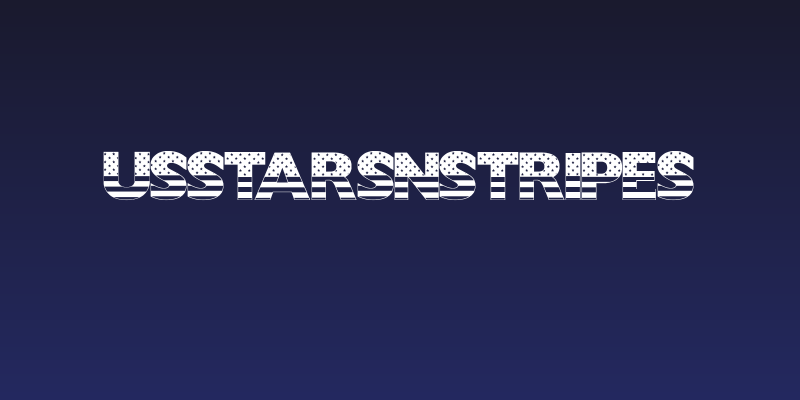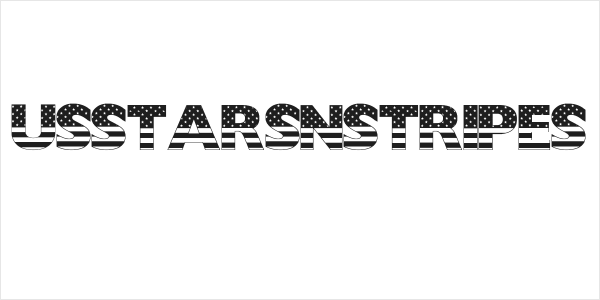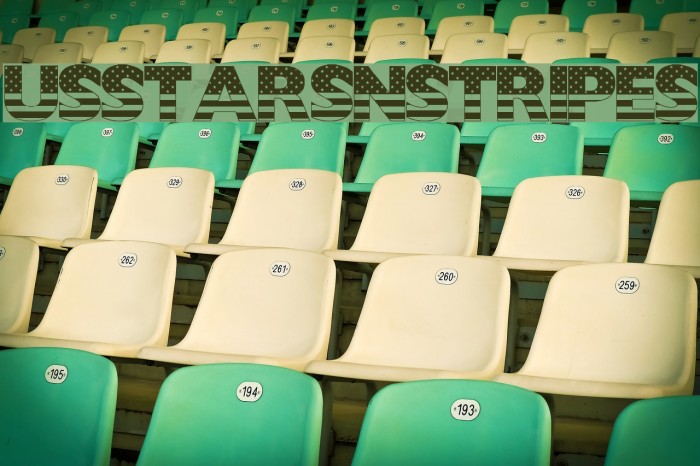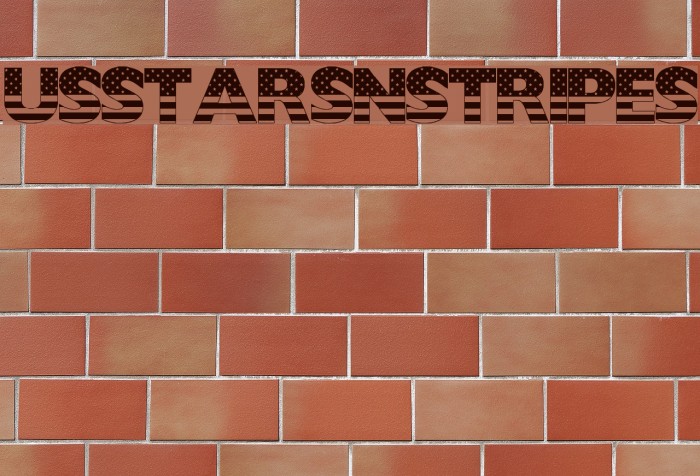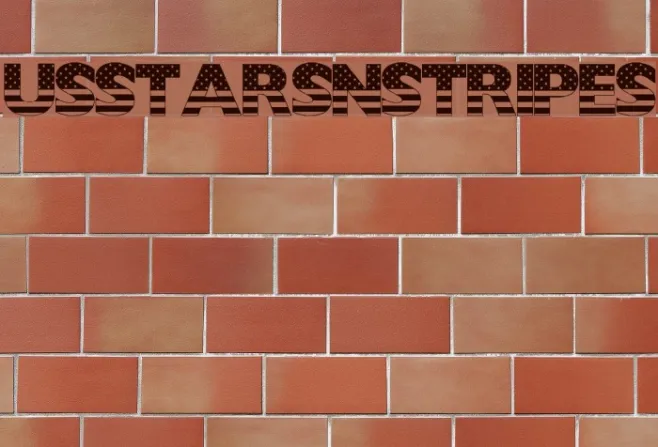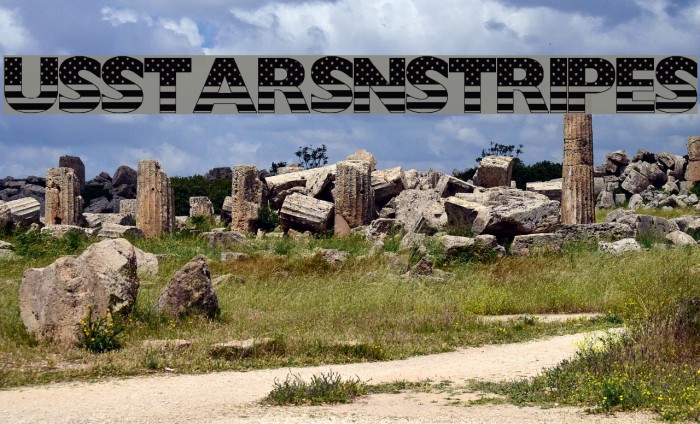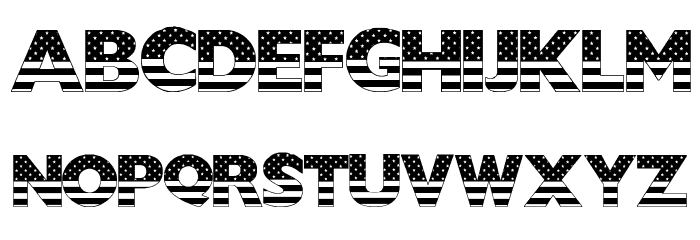
USStarsNStripes Font
USStarsNStripes Description
This font features a bold and decorative style, incorporating elements of the American flag with stars and stripes integrated into each character. The uppercase letters are designed with a strong, impactful presence, making them ideal for patriotic themes. The use of stars and stripes adds a unique texture and visual interest, creating a sense of movement and dynamism. This font is perfect for designs that require a bold statement and a touch of national pride. The characters are evenly spaced, ensuring readability while maintaining their decorative appeal.
| Proposed Projects | Ideal for patriotic posters, event banners, themed merchandise, and promotional materials celebrating national holidays. |